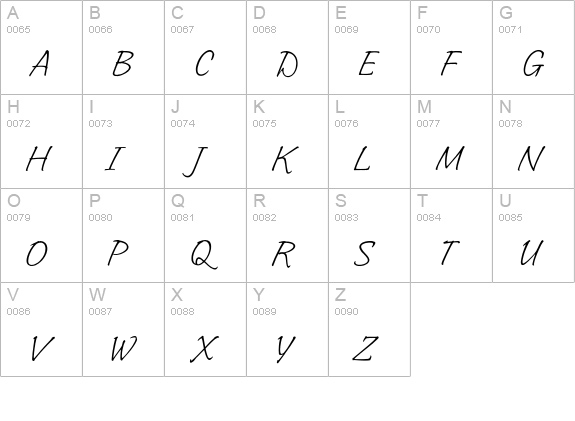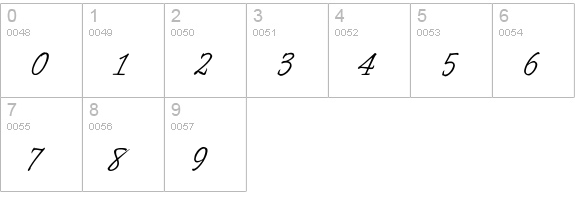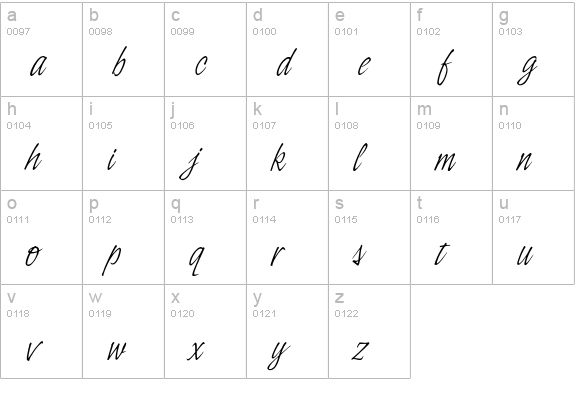
OPTIIngramFive Font Details
Introducing OPTIIngramFive font, a versatile and modern typeface perfect for a wide range of design projects. With its sleek and elegant design, OPTIIngramFive exudes sophistication and style. This font is free to download at FontsMarket.com, making it easily accessible for all designers and creatives looking to elevate their work. OPTIIngramFive is ideal for creating eye-catching headlines, branding materials, signage, and more. Its clean lines and unique character shapes make it a standout choice for any project that demands a touch of elegance. Elevate your designs with OPTIIngramFive font today and unleash your creativity with this freely available typeface.